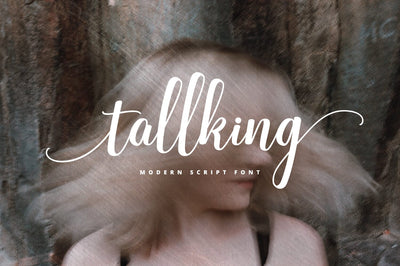
Tallking Script Font
This is a new modern calligraphy font in casual and simple style. This font is italicthat is made slowly and thoroughly which aims to convey the character of writing that is elegant, neat, simple, bold and still stylish.